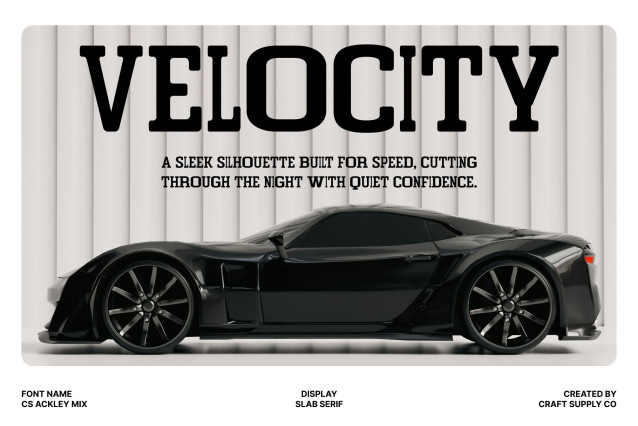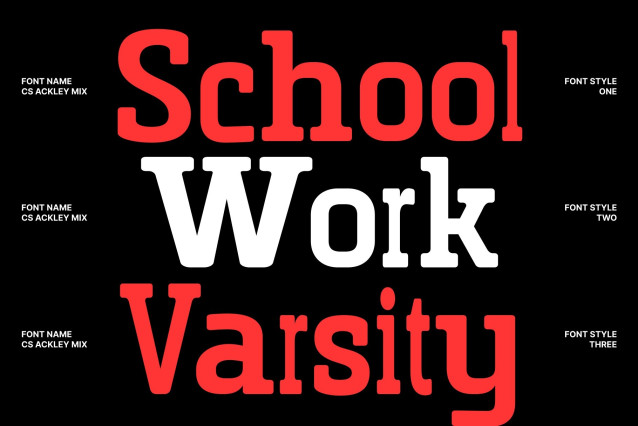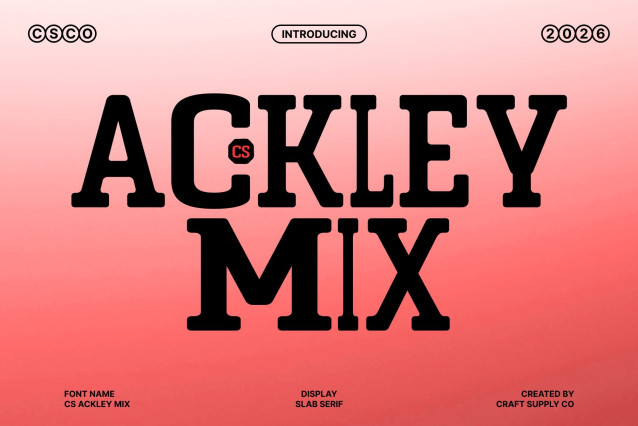
CS Ackley Mix Font
CS Ackley Mix – Bold Slab Serif Font: Industrial Strength with Modern Impact
Bold Slab Serif with Mixed Style Character
This is a bold slab serif font designed to project strength, confidence, and industrial power. Built with thick blocks, sturdy serifs, and commanding proportions, this typeface introduces a distinctive mixed-style concept that adds contrast and visual rhythm to every composition.
A Powerful Blend of Bold and Regular Letterforms
The defining feature of this font lies in its creative fusion of bold and regular styles. This mixed-weight approach creates dynamic visual contrast, enhancing hierarchy and making text feel more energetic and expressive. The balance between heavy forms and structured spacing allows the font to maintain both strong personality and excellent readability across different layouts.